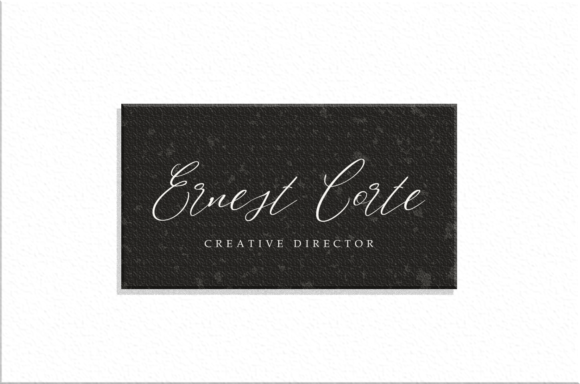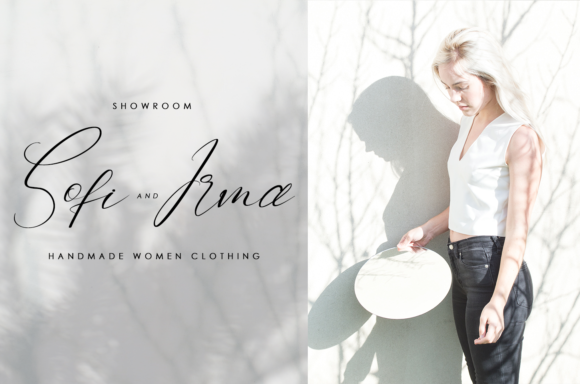
Introduction to Anna Maria Font
Have you ever found yourself in the midst of a creative project, staring blankly at a blank canvas, searching for the perfect font to bring your vision to life? That’s where the enchanting Anna Maria Font comes in – a gorgeous script that’s sure to ignite your imagination and transport you to a world of elegance and romance.
As designers, we’re always on the lookout for high-quality design resources that can elevate our work and make it stand out. That’s why the Anna Maria Font is a valuable addition to any designer’s toolkit. With its transparent background and beautiful, flowing script, it’s the perfect choice for creating eye-catching graphics, logos, and other design elements.
Key Features of Anna Maria Font
- High-quality design: Anna Maria Font is a well-crafted, elegant font perfect for any creative project.
- Transparent background: This font features a transparent background, making it ideal for use on images and designs where a clear background is required.
- High-resolution design: Anna Maria Font is designed at a high resolution, making it suitable for use in large-scale designs and prints.
- Unique characteristics: The font features a unique blend of classic and modern elements, making it a standout design resource for creative projects.
- Large character set: Anna Maria Font includes a large character set, making it suitable for use in a range of languages and applications.
Honest Review: Anna Maria Font
As a designer, I’m always on the lookout for high-quality design resources to elevate my creative projects. Recently, I stumbled upon Anna Maria Font, and I’m excited to share my honest review.
What works well: ✨ The font is incredibly versatile, with a unique blend of modern and vintage elements. The transparent background feature is a game-changer, allowing for seamless integration into any design. The high quality of the font is evident in its crisp, clean lines and smooth typography.
Features:
- High-quality typography
- Perfect for creative projects, from logos to graphics
However, there are a few limitations: ⚠️ The font selection is limited, and it may not be suitable for more complex designs. Additionally, the font may not be compatible with all operating systems.
Overall, I’m impressed with Anna Maria Font. It’s a great addition to any designer’s toolkit, and its free download makes it an excellent value. While it may not be perfect, its unique style and high quality make it a worthwhile resource for any creative project.
Anna Maria Font
The Anna Maria Font is a beautiful, high-quality design resource perfect for any creative project. To get the most out of it, follow these steps:
For the best results, use the Anna Maria Font in conjunction with other design elements, such as images and graphics. Experiment with different font sizes, colors, and styles to create a unique and eye-catching design.
The Anna Maria Font is perfect for a variety of design projects, including:
– Wedding invitations and stationery
– Branding and marketing materials
– Digital graphics and illustrations